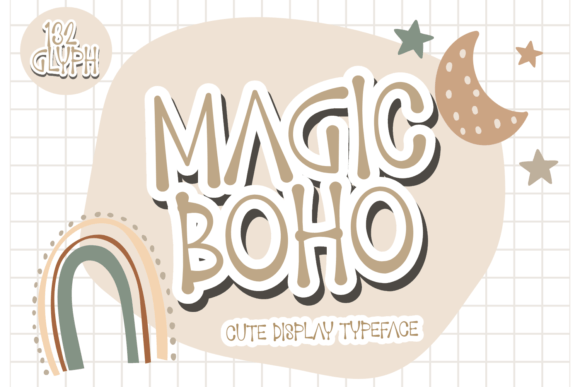
Magic Boho: A Playful Font for Creative Expression
In the world of typography, finding a font that balances creativity with clarity can be a challenge. Magic Boho, with its whimsical and expressive style, offers a unique solution for designers, artists, and creators who want to infuse their work with personality and charm. This font is more than just an aesthetic choice—it's a tool that can elevate the visual storytelling of any project.
Designed with both traditional media and digital platforms in mind, Magic Boho is ideal for those who value a blend of artistry and functionality. Its fluid curves and playful letterforms make it particularly well-suited for projects that aim to evoke emotion or convey a sense of freedom. Whether used in print or online, this font adds a distinct character that stands out from the more rigid and structured typefaces commonly found in design work.
Characteristics That Define Magic Boho
The defining feature of Magic Boho is its handcrafted feel. Each letter is designed to resemble a freehand sketch, giving the font a personal and organic quality. This makes it perfect for projects that require a human touch, such as invitations, greeting cards, or branding materials that aim to feel authentic and approachable.
One of the standout aspects of Magic Boho is its versatility. While it may appear casual at first glance, the font includes a range of stylistic alternatives that allow for greater customization. Designers can choose between different variations of each character to suit the tone and purpose of their work. For instance, a more exaggerated form might be used for a bold headline, while a simpler version could be employed for body text to maintain readability.
The font also supports a wide range of languages, making it a practical choice for international projects. Its glyphs are carefully crafted to ensure consistency across different scripts, which is essential for maintaining a cohesive visual identity in multilingual contexts.
Applications Across Industries
Magic Boho has found a home in a variety of creative fields, from graphic design to marketing and even education. In the realm of graphic design, it’s often used for promotional materials, such as posters, banners, and social media graphics. Its lively appearance makes it ideal for campaigns targeting younger audiences or brands that want to project a fun and energetic image.
For educators and students, Magic Boho can be a valuable resource in teaching typography and design principles. Its unique structure encourages experimentation and helps learners understand how different fonts can influence the overall message of a piece. Teachers might use it in classroom projects to demonstrate how visual elements can shape perception and engagement.
In the field of craft and DIY, Magic Boho is a favorite among hobbyists who want to add a personal flair to their creations. Whether it’s customizing a T-shirt, designing a handmade journal, or creating a personalized gift, this font provides a way to express individuality through typography. Its ease of use and availability in digital formats make it accessible to both beginners and experienced creators.
Advantages of Using Magic Boho
One of the main advantages of Magic Boho is its ability to capture attention without overwhelming the viewer. Unlike some highly stylized fonts that can be difficult to read, Magic Boho maintains a balance between creativity and legibility. This makes it suitable for a wide range of applications, from signage to web content, where clarity is essential.
Another benefit is its adaptability. Because it’s available in multiple weights and styles, designers can easily adjust the font to fit different design needs. This flexibility is especially useful when working on projects that require a consistent look across various formats, such as a brand’s website, mobile app, and printed materials.
Additionally, Magic Boho is optimized for both screen and print. This ensures that it looks great whether it’s being used in a digital ad or a physical brochure. The font’s design takes into account the technical limitations of different mediums, so it retains its visual appeal regardless of the context in which it’s used.
Considerations When Using Magic Boho
While Magic Boho is a powerful tool, it’s important to consider its limitations. Due to its decorative nature, it may not be the best choice for large blocks of text. In such cases, pairing it with a more neutral font can help maintain readability while still allowing the playful elements of Magic Boho to shine through.
Designers should also be mindful of the audience they’re targeting. While the font’s whimsical style may resonate well with younger demographics, it may not be appropriate for more formal or professional settings. Understanding the tone and message of a project is key to determining whether Magic Boho is the right choice.
Finally, it’s worth noting that while Magic Boho is a versatile font, it works best when used intentionally. Overusing it or applying it to every element of a design can dilute its impact. Instead, using it strategically—such as for headings, logos, or accent elements—can help maximize its effectiveness and ensure that it enhances rather than detracts from the overall design.
Conclusion
Magic Boho is more than just a font; it’s a creative expression that brings a sense of joy and authenticity to any project. Its unique characteristics, combined with its practical applications, make it a valuable asset for designers, educators, and creators alike. By understanding its strengths and limitations, users can harness its potential to create visually engaging and meaningful work that resonates with their audience.